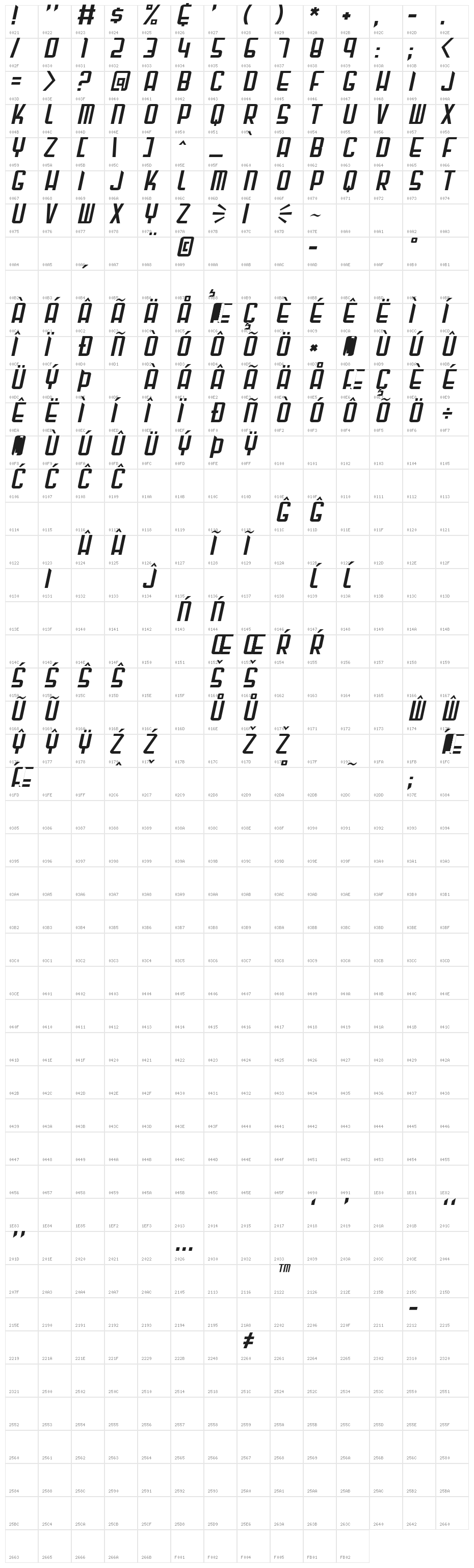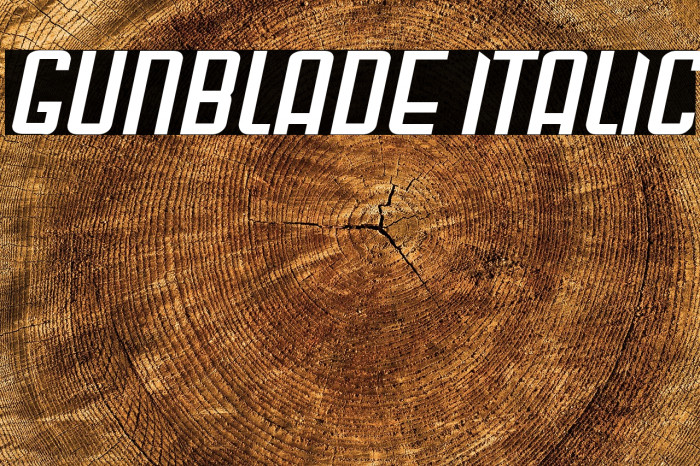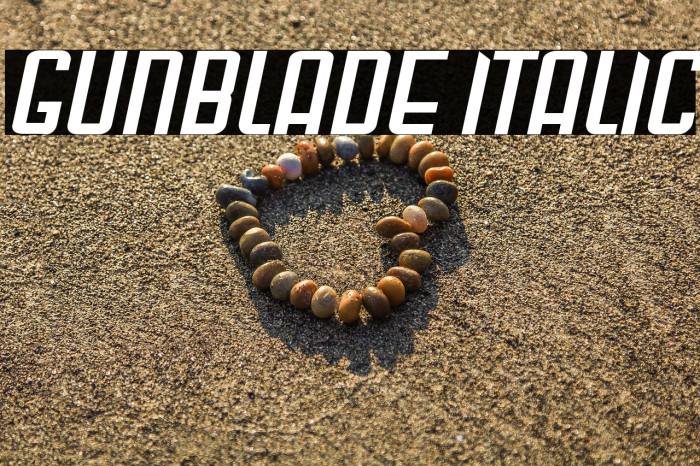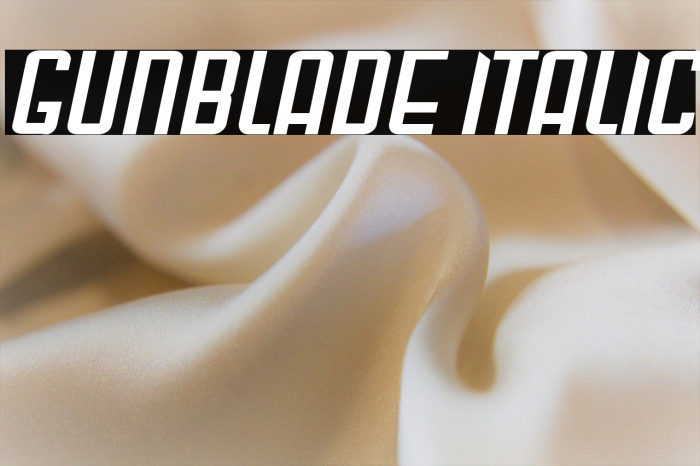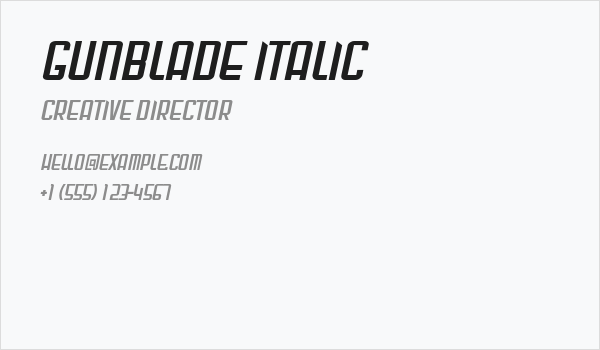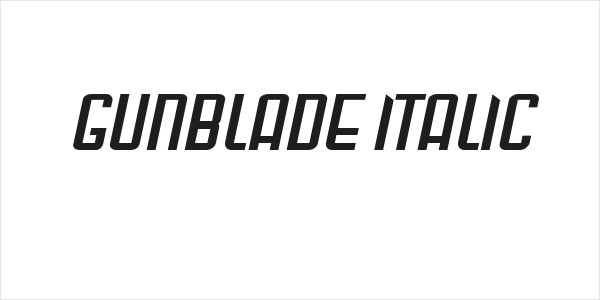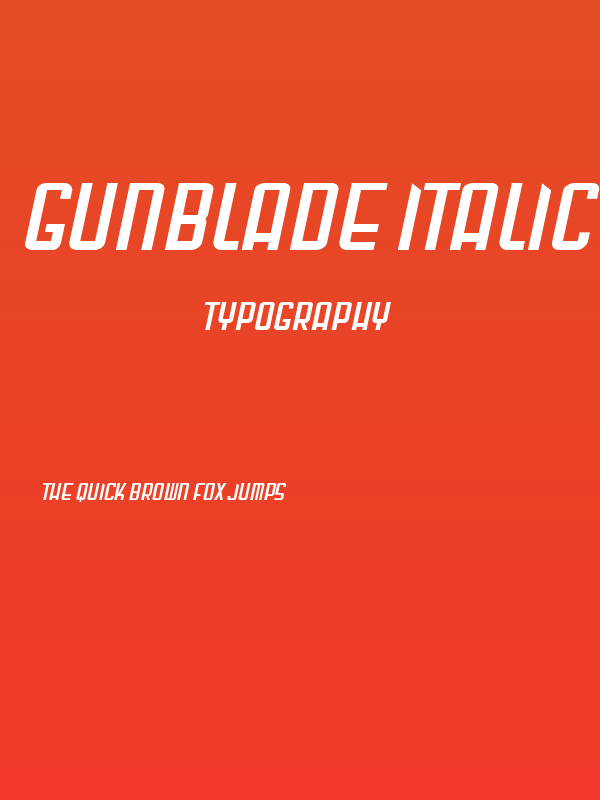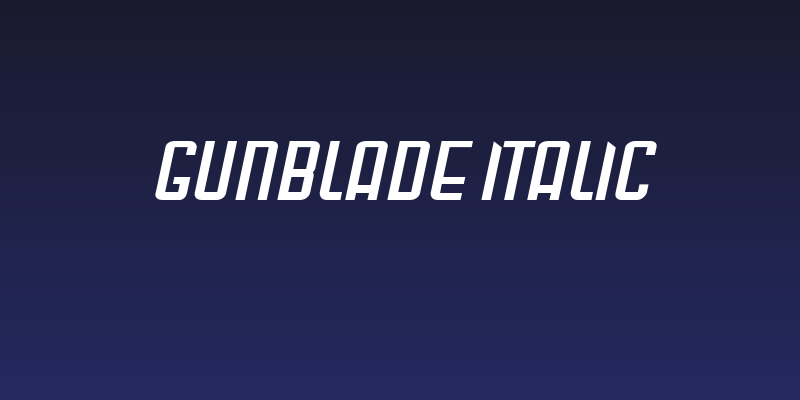
Gunblade Italic Font
Gunblade Italic Description
This font features a dynamic and modern italic style, characterized by its sharp angles and clean lines. The letters are slightly slanted, giving a sense of motion and energy. The uppercase and lowercase characters maintain a consistent height, while the numerals are bold and easily distinguishable. Special characters are designed with the same angular precision, ensuring uniformity across all glyphs. The overall appearance is sleek and contemporary, making it suitable for projects that require a bold and assertive typeface.
| Proposed Projects | Ideal for sports branding, tech logos, dynamic posters, and modern web design. |